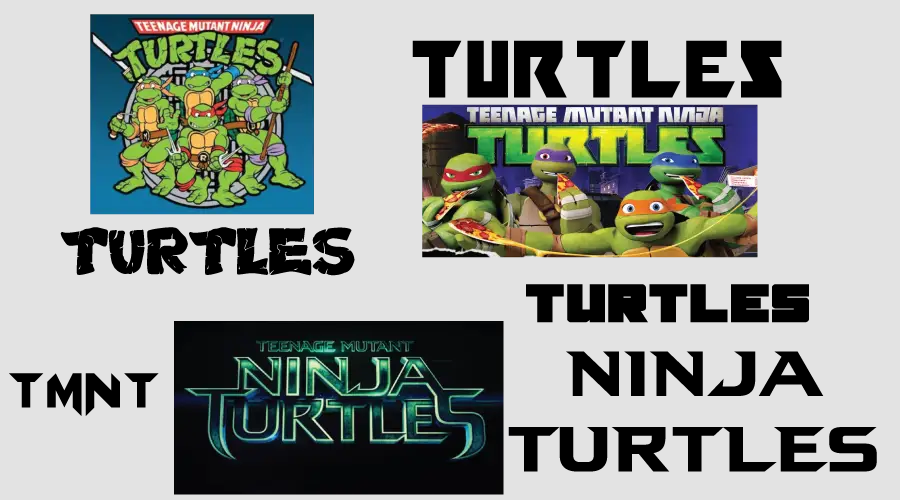
The Teenage Mutant Ninja Turtles (TMNT) have captured fans worldwide with their action-packed adventures. From comics to cartoons, movies to merchandise, the beloved turtles have left an indelible mark on pop culture. The Teenage Mutant Ninja Turtles (TMNT) logo uses various custom-made font styles, and there is no official font from the franchise.
However, many fans and font designers have recreated these fonts, allowing enthusiasts to generate their own versions of the TMNT font.
Fonts Similar To TMNT font
1987 TMNT font
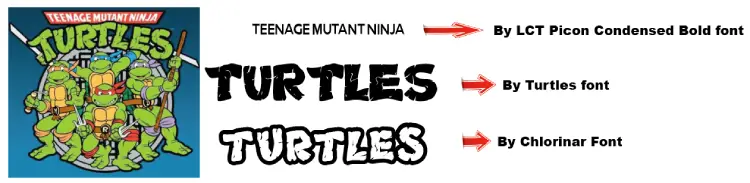
There are fonts like Turtles font by Pixel Sagas and Chlorinar font by Caffeen Fonts that look like the 1987 TMNT font, for example. These fonts are looks similar to the word logo “TURTLES” and LCT Picon Condensed Bold font is look similar to the “TEENAGE MUTANT NINJA” word logo.
2008 Font
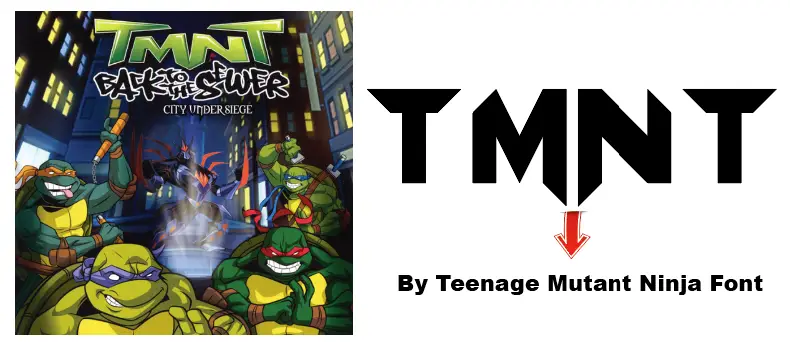
The Teenage Mutant Ninja font looks like a replica version of the 2008 “TMNT – Back to the Sewer” logo. The font looks similar to the wordmark “TMNT”. The “Back to the Sewer” wordmark resembles the Ampercamp font Hip Slop. Hip Slop is a paid font.
2012 TMNT Font
The Booyakasha font by JMK is similar to the 2012 version of the TMNT font. The font replicates the wordmark “TURTLES.” Where the “Teenage Mutant Ninja” wordmark look similar to the Halfshell Hero font.
2012 TMNT Movie Font
Samurai Terrapin Font by Iconian Fonts has a close look to the logo of the 2012 movie Teenage Mutant Ninja Turtles.
2014 Movie Font
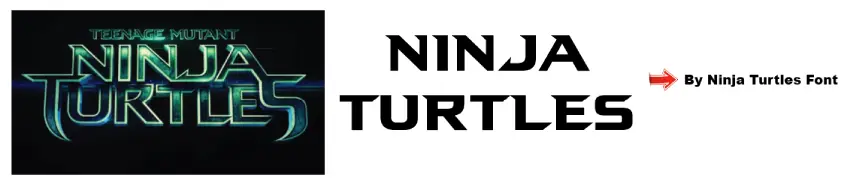
Ninja Turtles Font by FZ Font looks like the 2014 Teenage Mutant Ninja Turtles movie logo font.
The TMNT logo features custom-made fonts with no official font from the franchise. Fans and font designers have recreated these fonts, allowing enthusiasts to generate their own versions of the TMNT font, such as “Turtles” by Pixel Sagas, “Chlorinar” by Caffeen Fonts, “Halfshell Hero” by Iconian Fonts, and “Teenage Mutant Ninja Font” by Alex Fulton. These fonts resemble various iterations of the TMNT logo, such as the 1987, 2008, 2012, and 2014 versions.